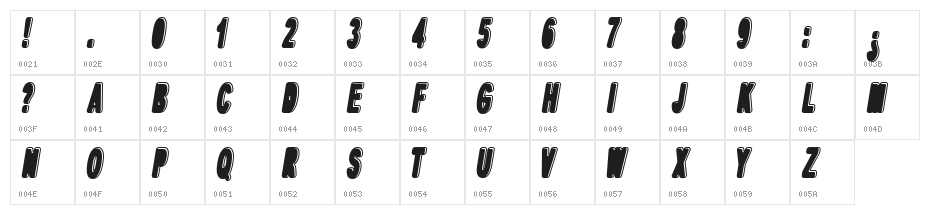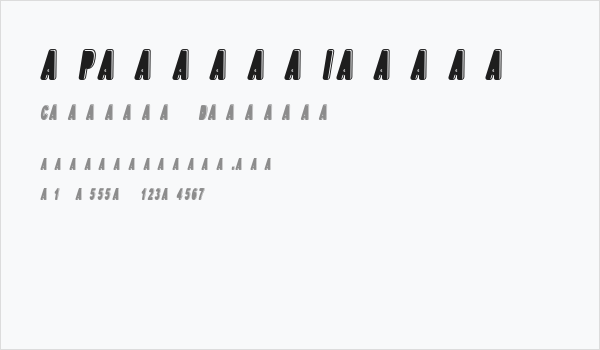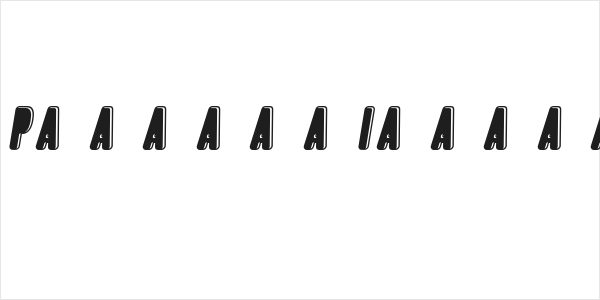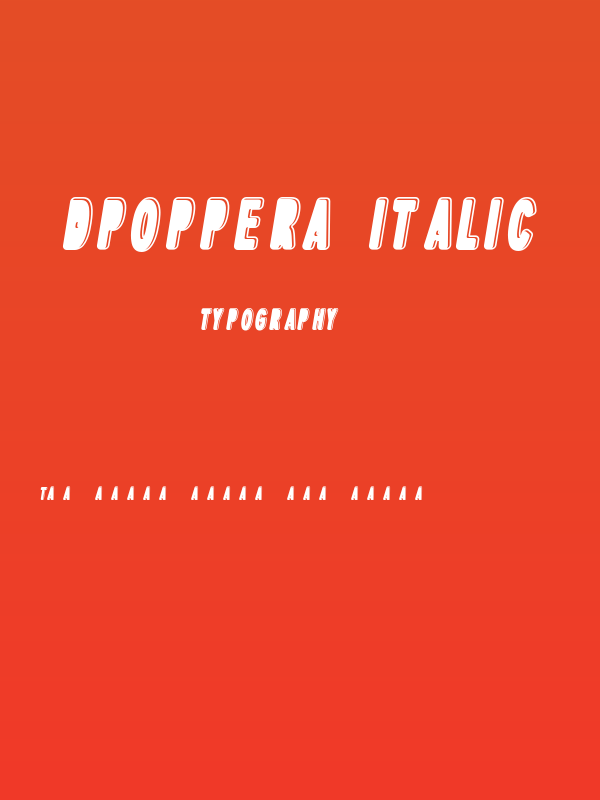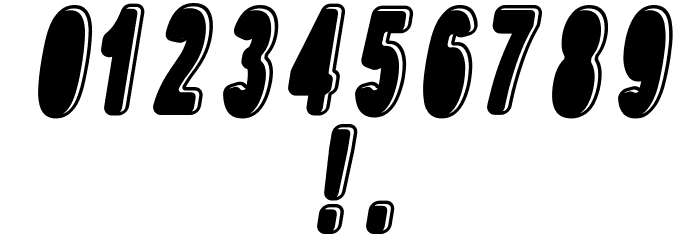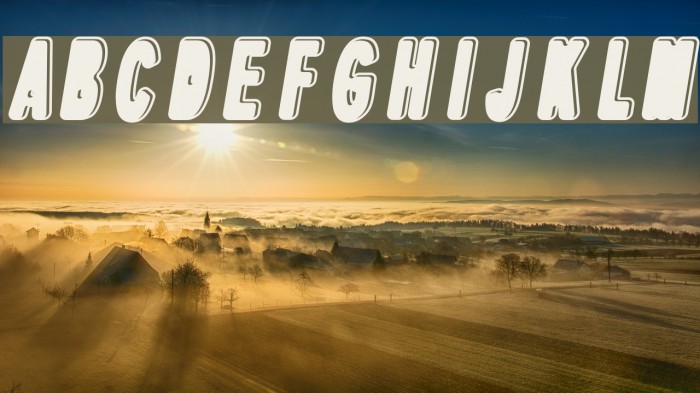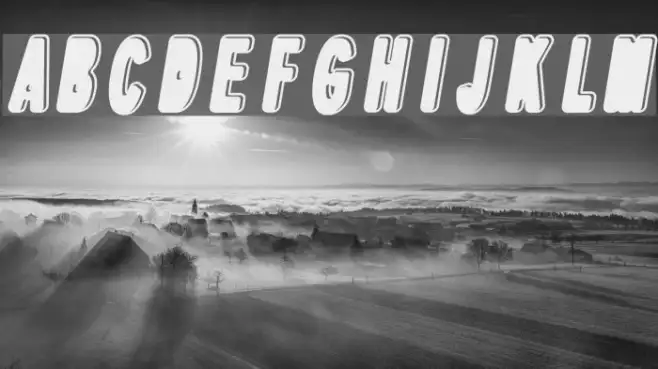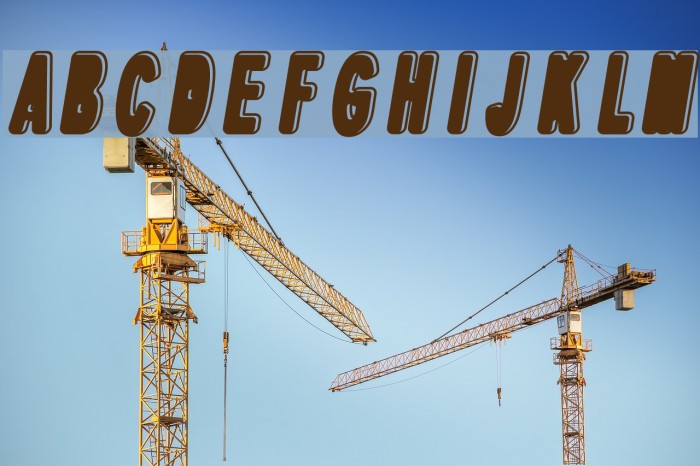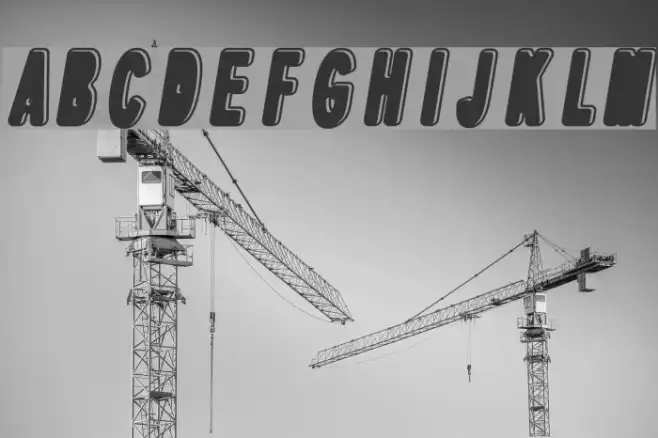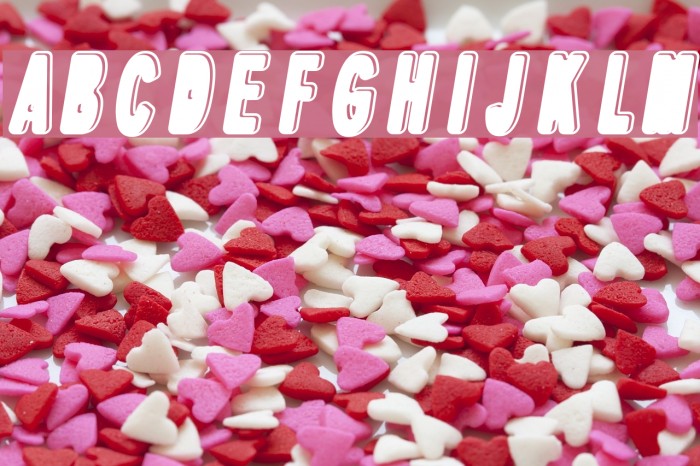
dPopper-Italic Font
dPopper-Italic Description
This font features a bold and playful style with a distinct italic slant. The characters are thick and rounded, giving them a strong presence on the page. The design incorporates a shadow effect, adding depth and a three-dimensional appearance. The uppercase and lowercase letters maintain a consistent style, with the lowercase slightly smaller but equally bold. The numbers and special characters follow the same design principles, ensuring uniformity across all elements. This font is ideal for projects that require a fun and dynamic look, such as posters, advertisements, and branding materials.
| Proposed Projects | Ideal for posters, advertisements, branding, and any design needing a fun, dynamic look. |